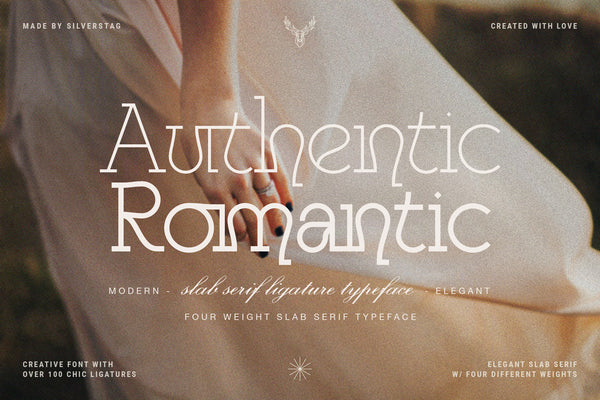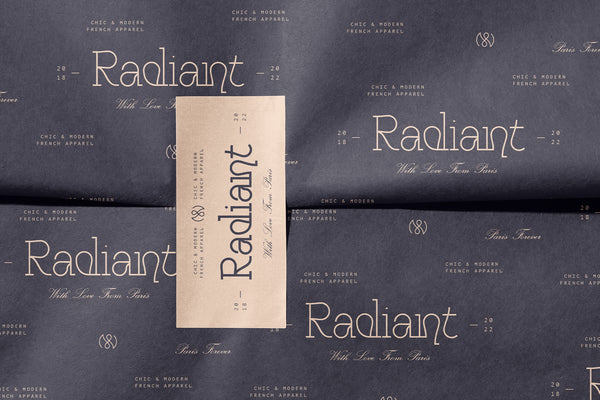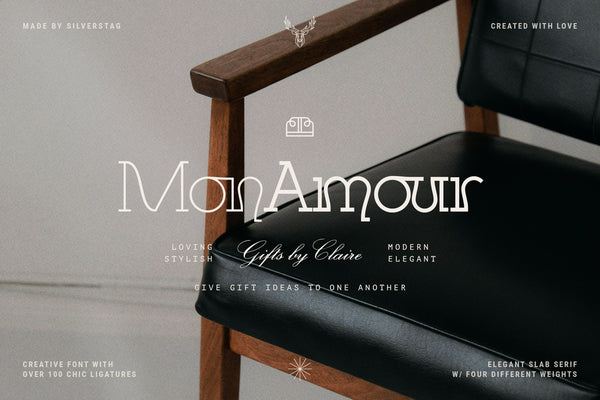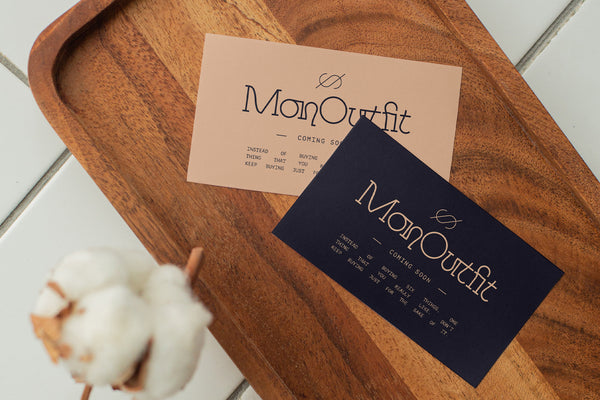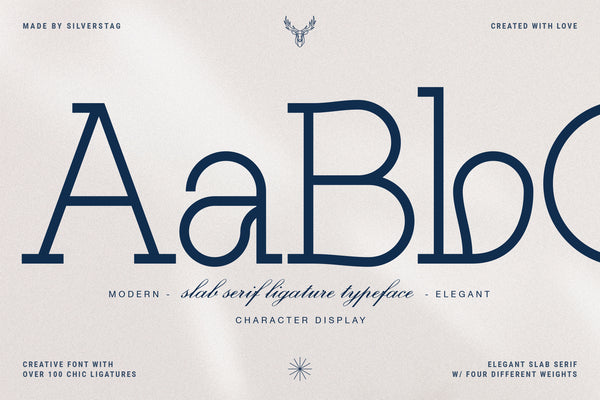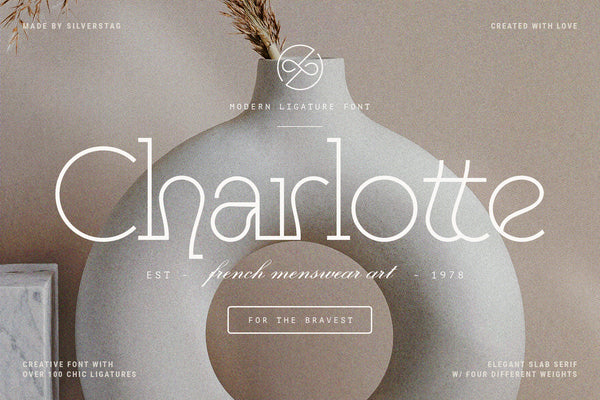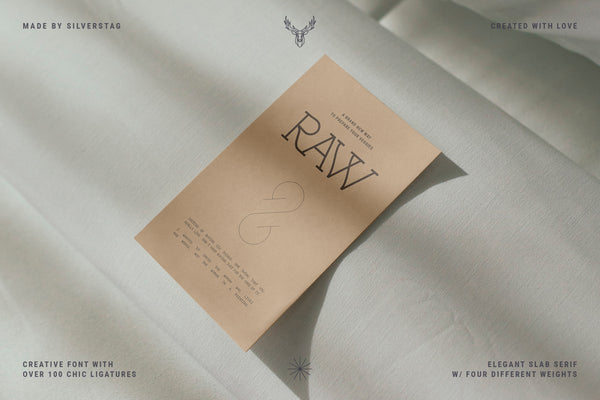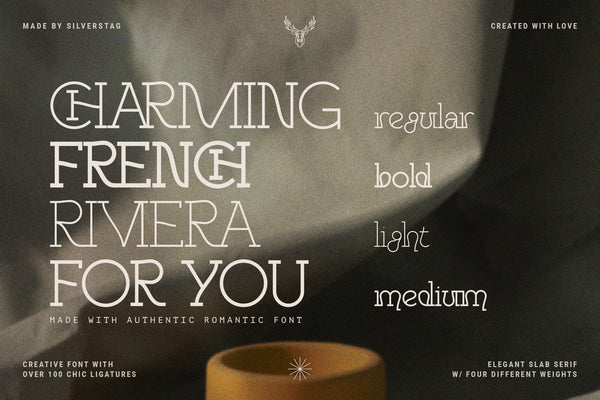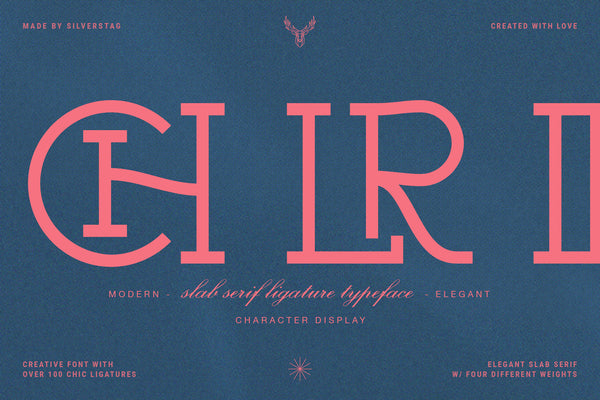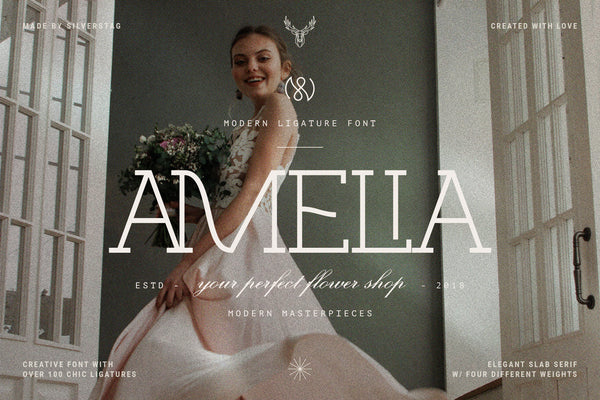
Start the year with character—Authentic Romantic is a bold and playful slab serif typeface that mixes modern structure with a touch of quirky charm. Designed for designers who love expressive typography, this font brings unique personality to everything from branding and packaging to headlines, posters, and creative content.
With over 100 ligatures, four versatile weights (Light, Regular, Medium & Bold), and a mix of unexpected letterforms, Authentic Romantic lets you customize your typography with a fresh, contemporary twist. It’s both expressive and functional—ready for both eye-catching display and stylish editorial use.
• 4 Font Weights – From Light to Bold for full typographic flexibility
• 100+ Ligatures – Add playfulness and rhythm to your text effortlessly
• Modern Slab Structure – Funky letterforms with clean, grounded shapes